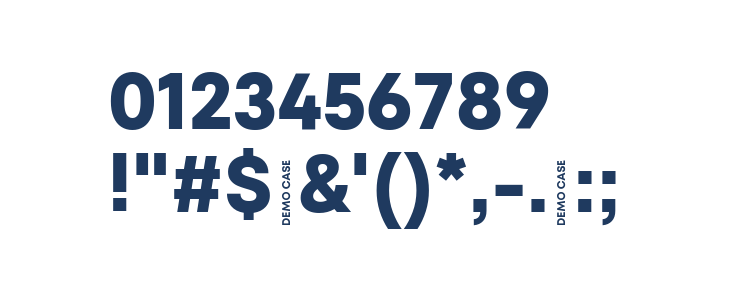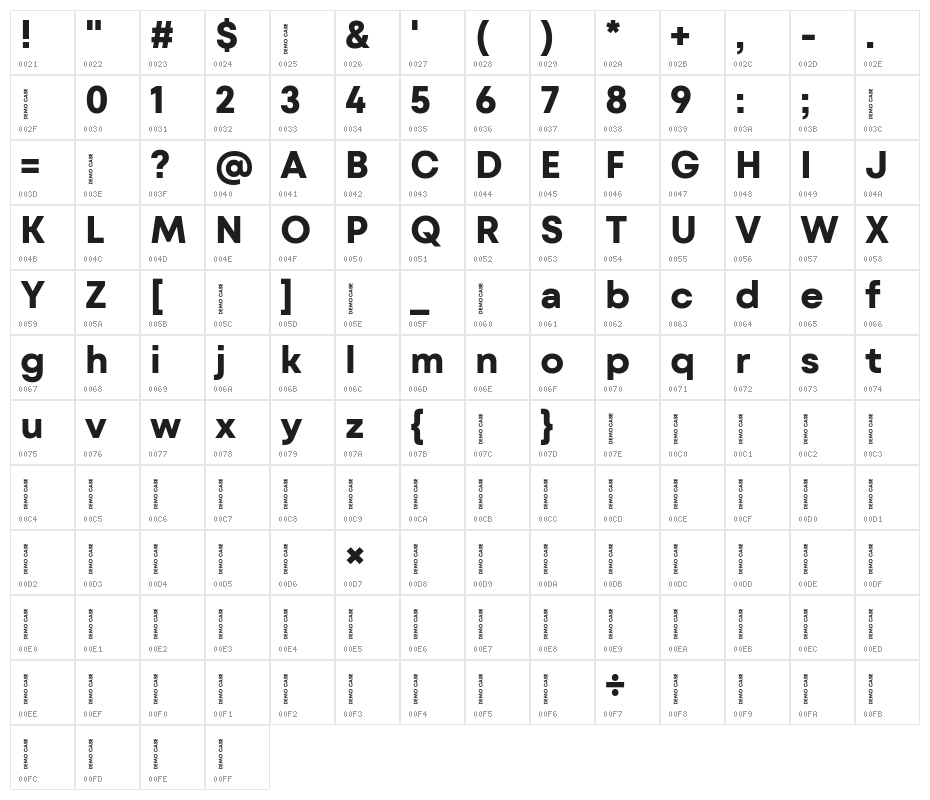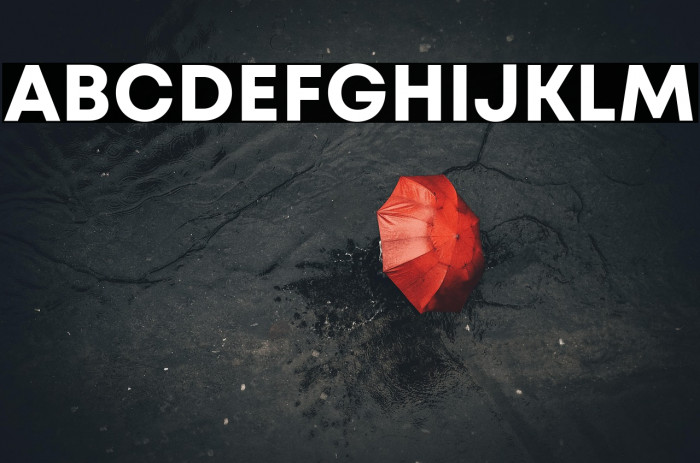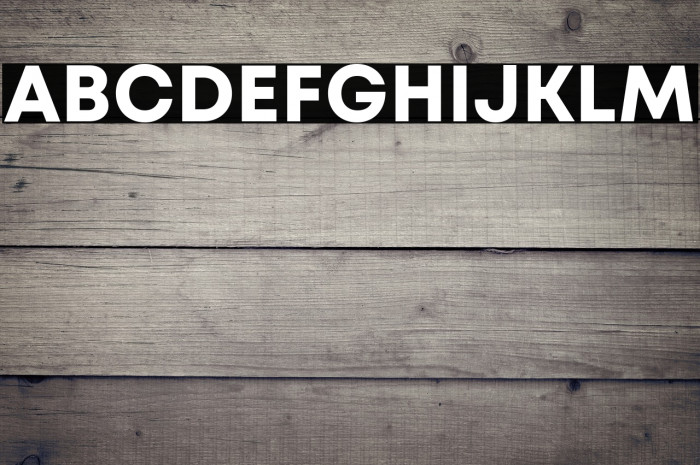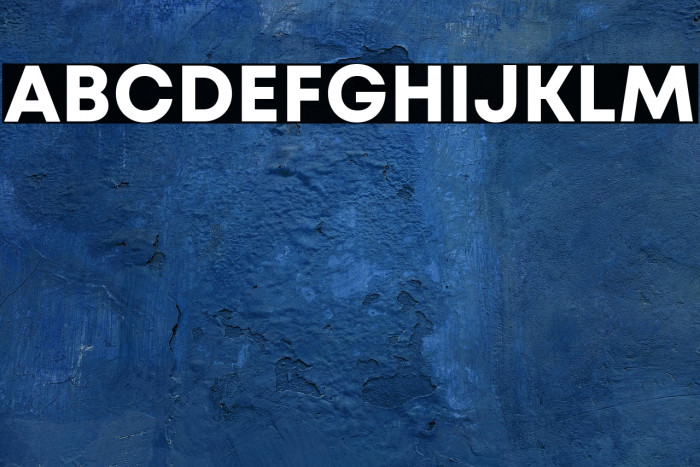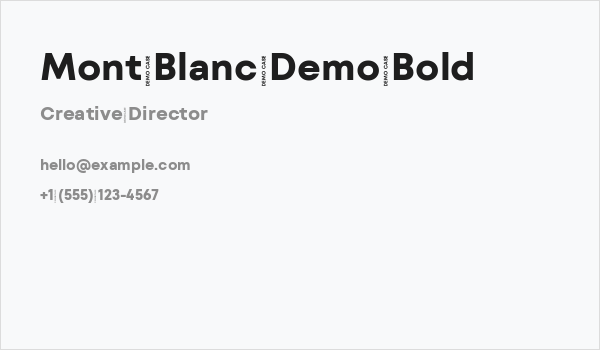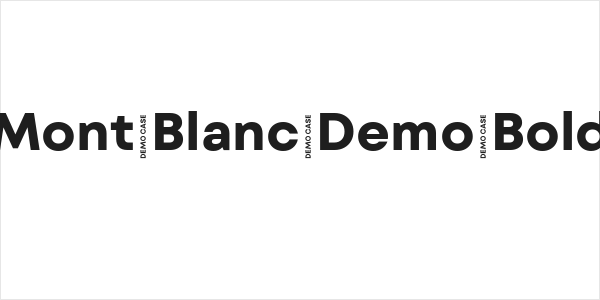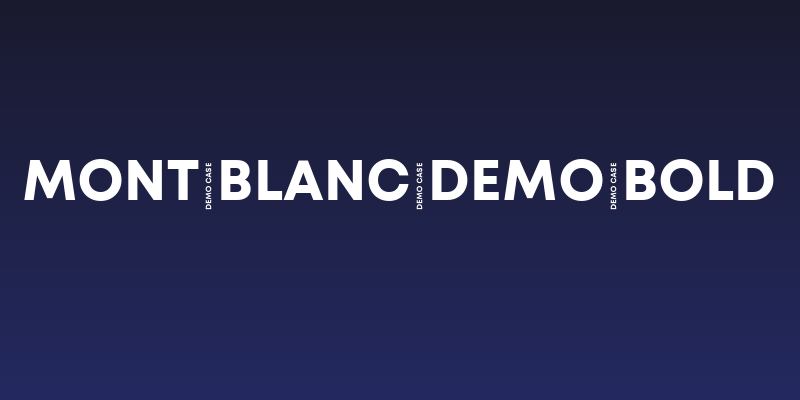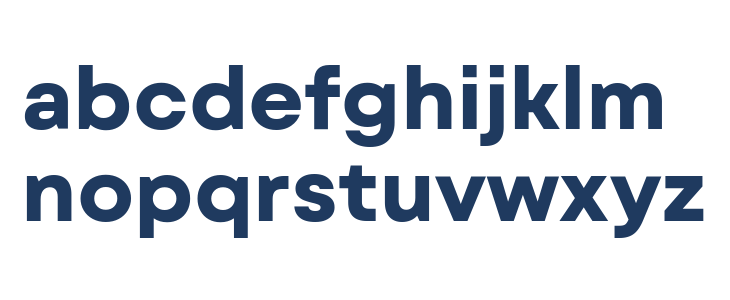
Mont Blanc Demo Bold Font
Mont Blanc Demo Bold Description
This font is a bold, sans-serif typeface characterized by its clean and modern appearance. The letters are evenly weighted, providing a strong and confident look. The uppercase and lowercase letters maintain a consistent style, with rounded edges that soften the overall impact. The numbers are clear and legible, making them suitable for various applications. Special characters are well-defined, ensuring versatility in design projects. The font's simplicity and boldness make it ideal for creating impactful headlines and titles, while its clarity ensures readability in body text.
Proposed ProjectsIdeal for branding, advertising, headlines, posters, and digital media.